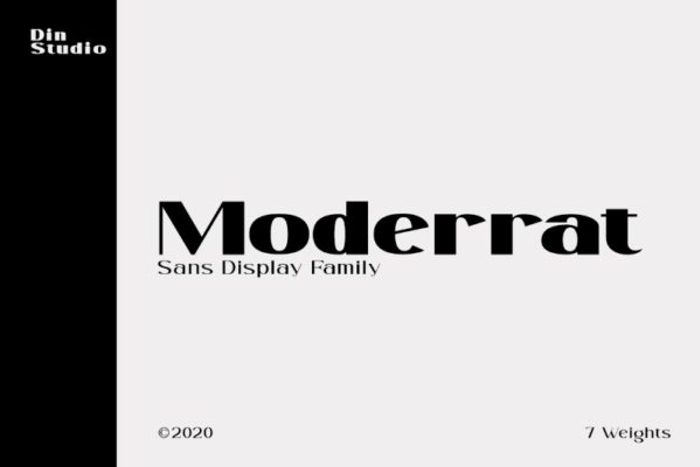
Moderrat Font
Moderrat Sans Serif Font Family is created by Din Studio featuring 7 fonts. The modern design of typeface will make your designs more powerful. The font is suitable for any projects, like webs, signages, corporates, as well as for editorial designs and so on.